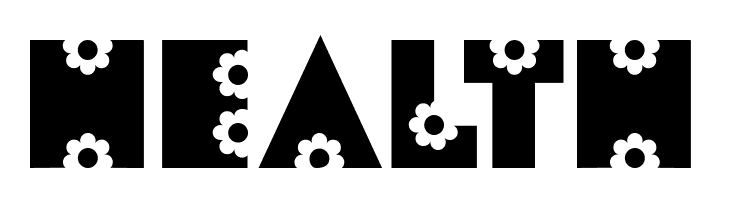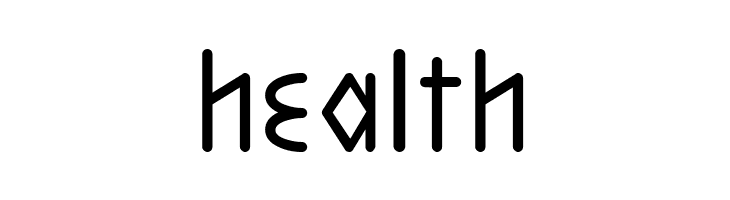
A bold, decorative font with heart motifs, perfect for romantic and playful designs.
A bold, decorative font with floral motifs integrated into geometric letterforms.
A playful, rounded font with geometric elements and consistent stroke widths.
A playful, handwritten font with smooth, flowing letterforms.
A bold, decorative font with intricate swirls and loops.
A bold, playful font with thick, rounded letters and a bubbly appearance.
A playful, hand-drawn font with a rough, organic texture.
A playful, rounded font with bold, smooth curves and a friendly appearance.